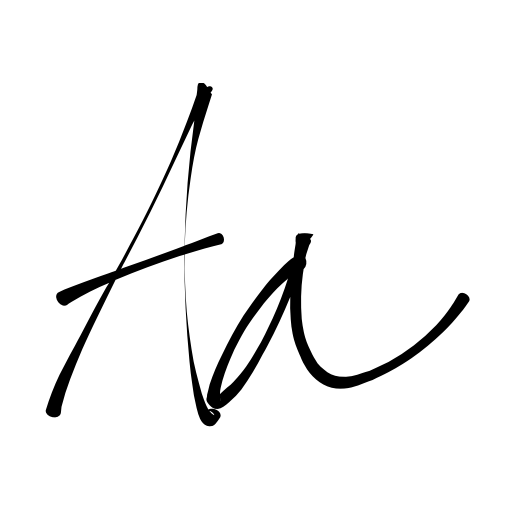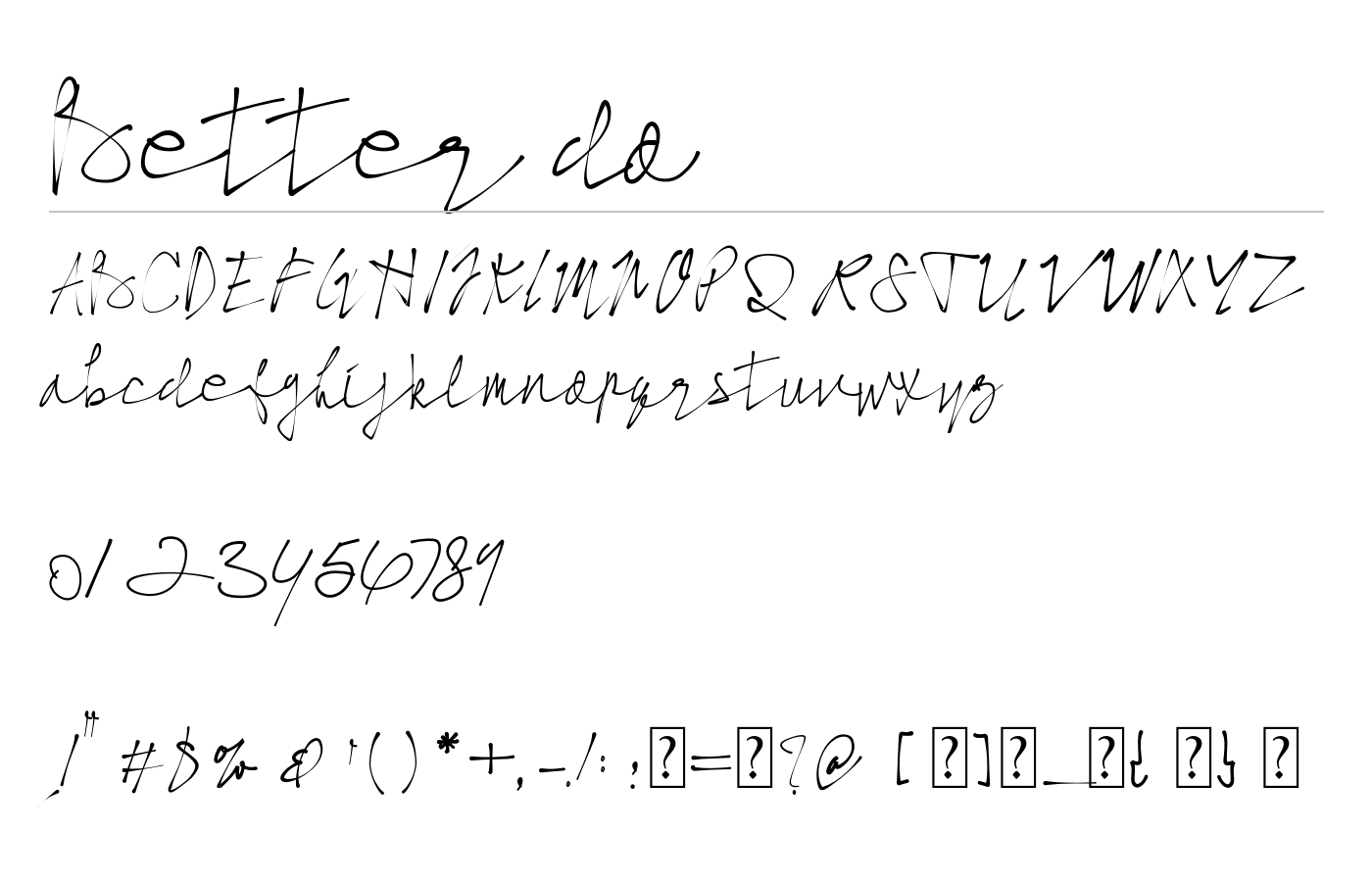
Better do Font is a delicate and expressive script typeface characterized by its slender, irregular strokes and casual, handwritten feel. It offers a lively and personal touch with its tall x-height and unique letter shapes, making it ideal for creative projects that seek authenticity and a modern, artistic vibe. This font works well for invitations, branding, and editorial designs where a stylish yet approachable aesthetic is desired.
Better do Font